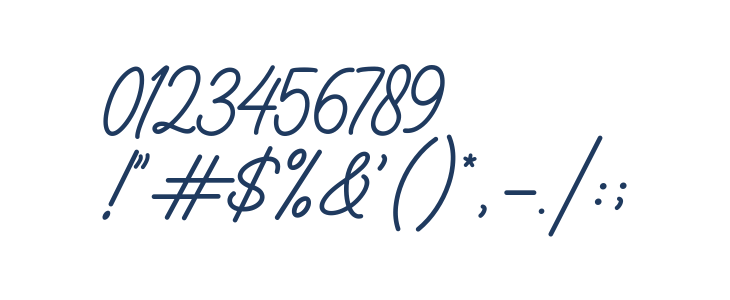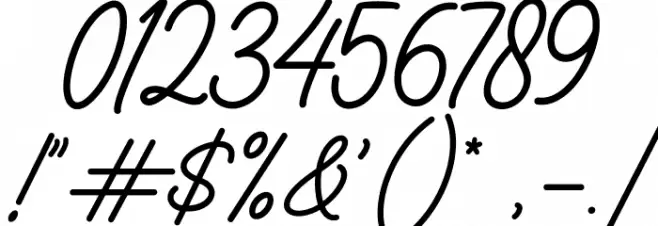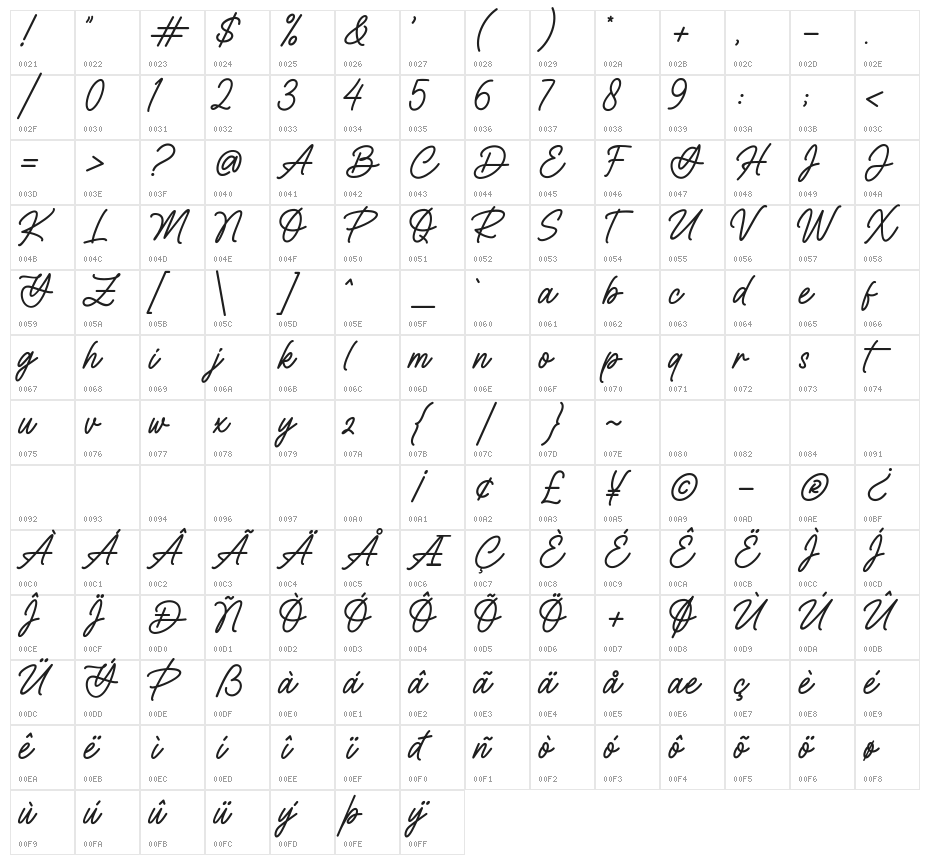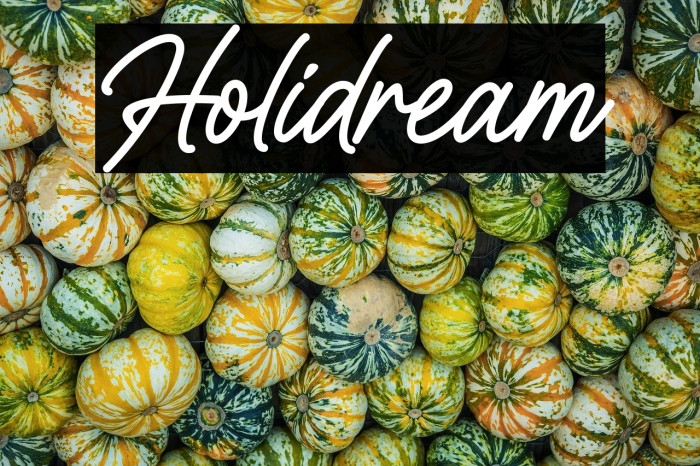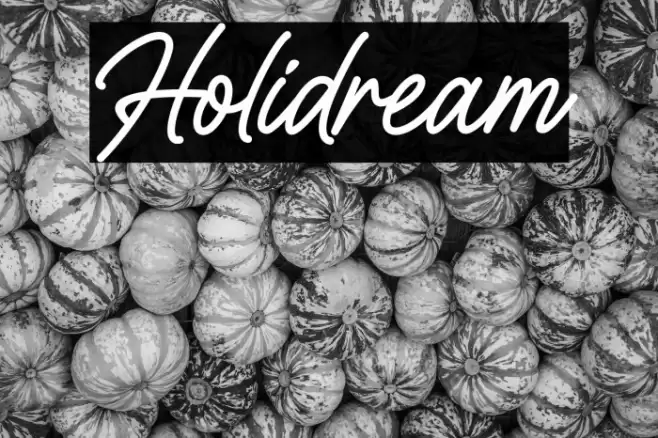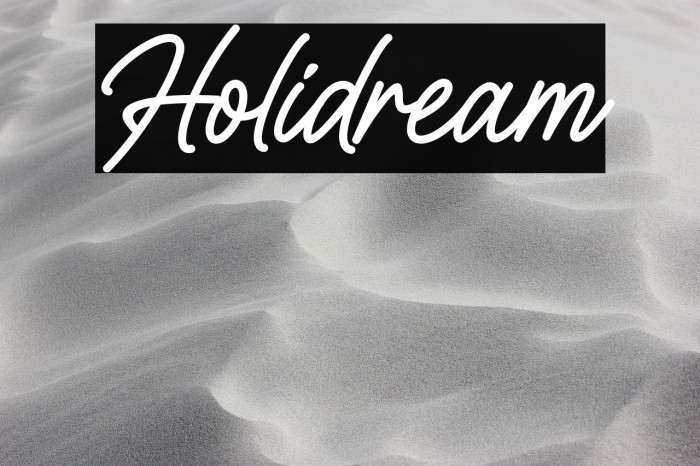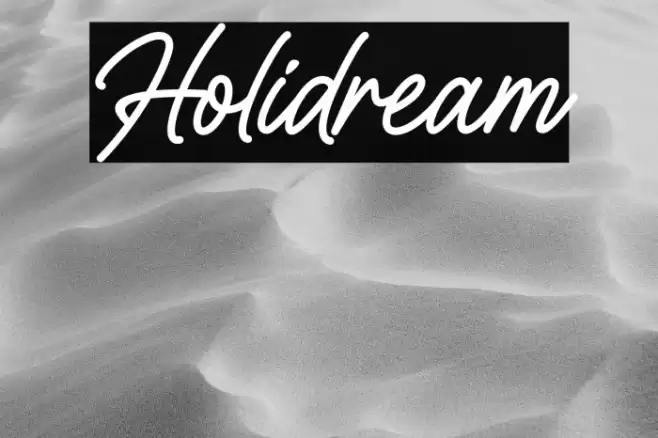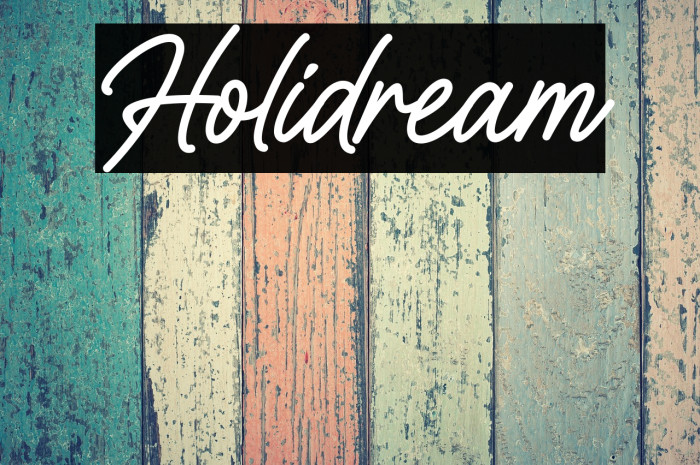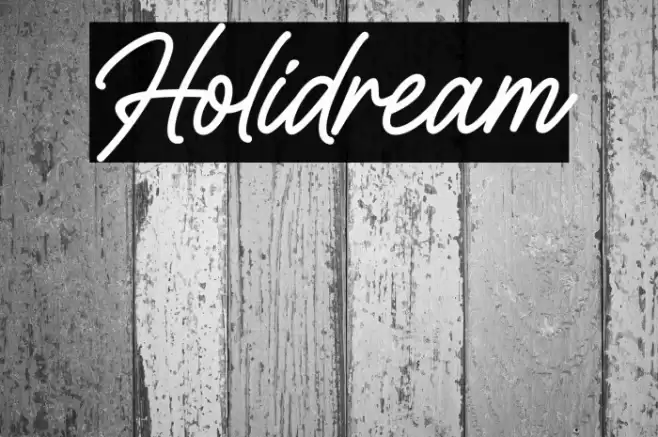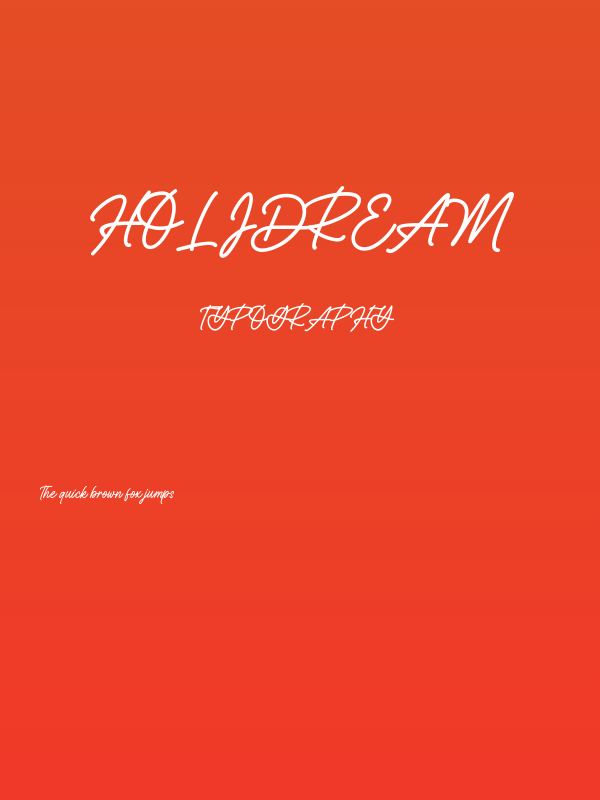
Holidream Font
Holidream Description
This font features a flowing, cursive style with elegant, connected strokes that mimic the fluidity of handwriting. The uppercase letters are slightly more formal, with a consistent slant and smooth curves, while the lowercase letters maintain a playful and approachable feel. The numerals are clear and legible, maintaining the same cursive style, which adds a touch of sophistication. Special characters are seamlessly integrated, ensuring versatility in various text compositions. The overall design is both stylish and readable, making it suitable for a variety of creative applications.
| Proposed Projects | Ideal for wedding invitations, greeting cards, personal branding, and elegant packaging designs. |